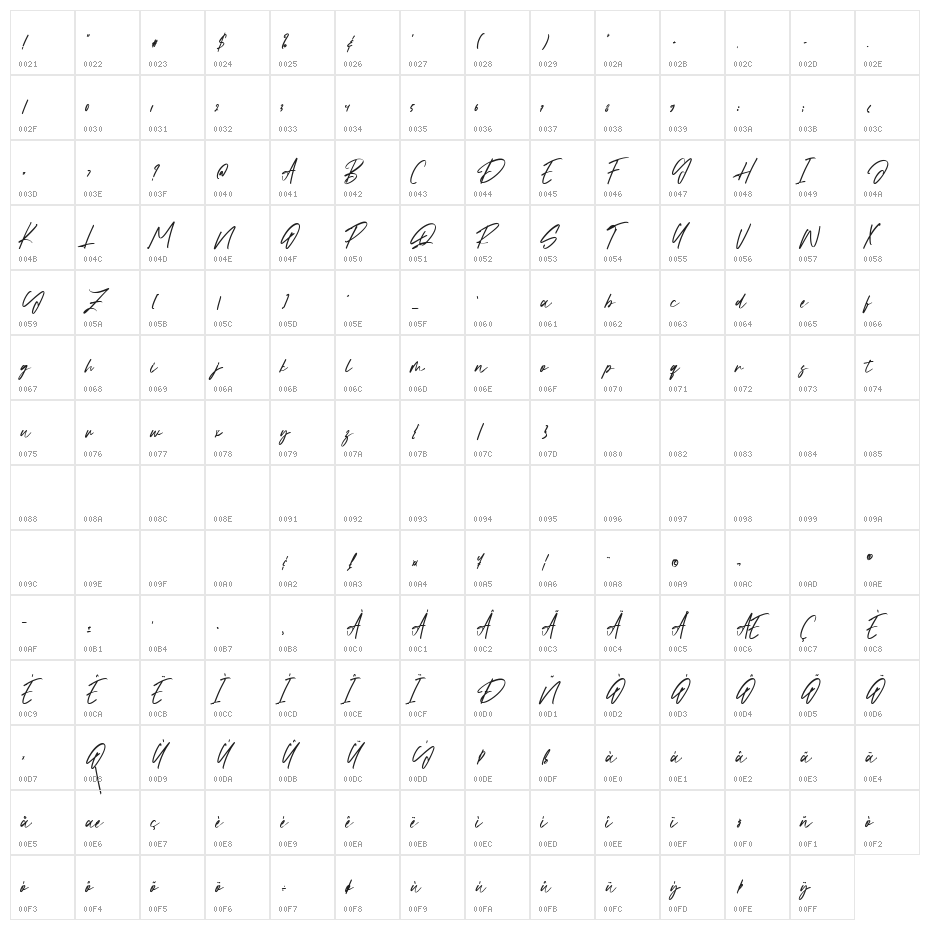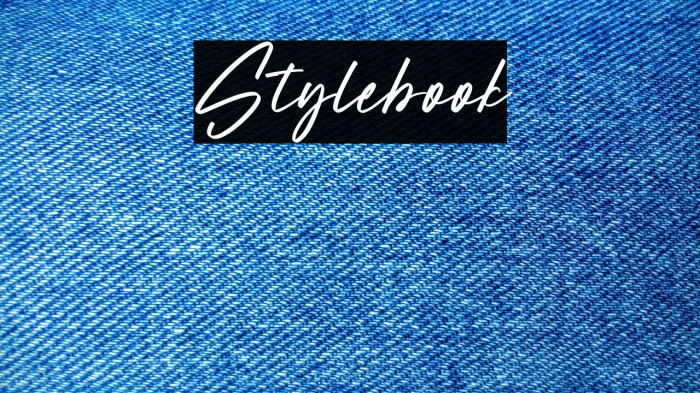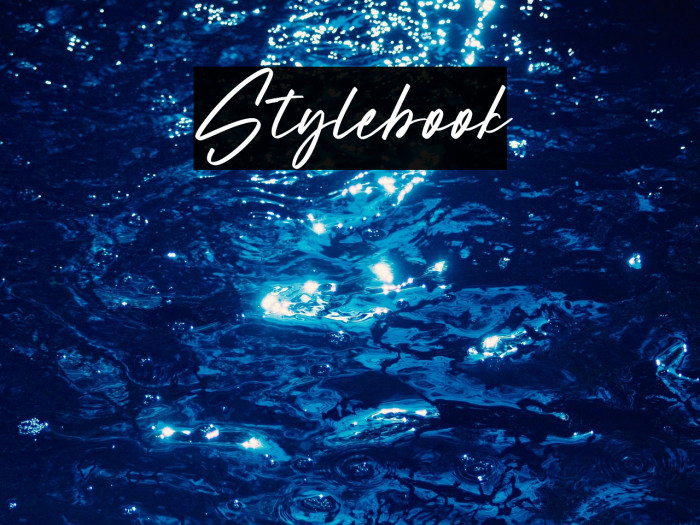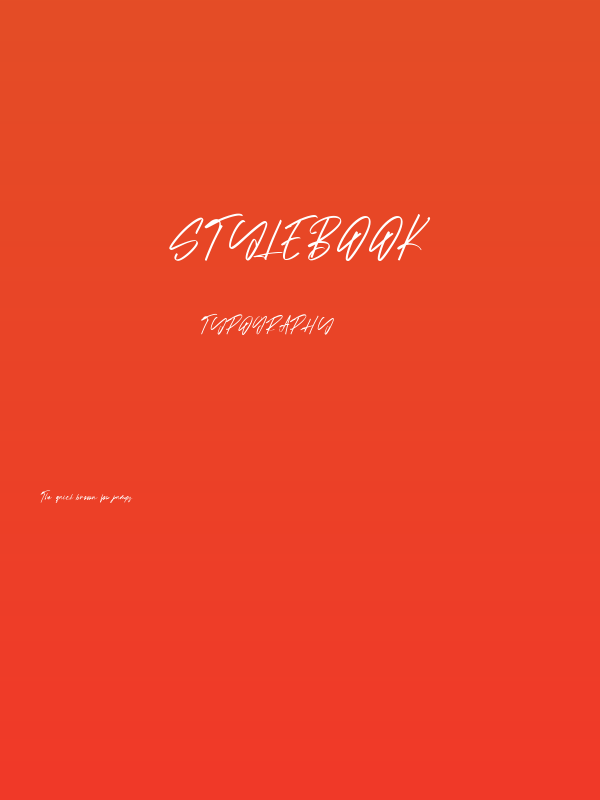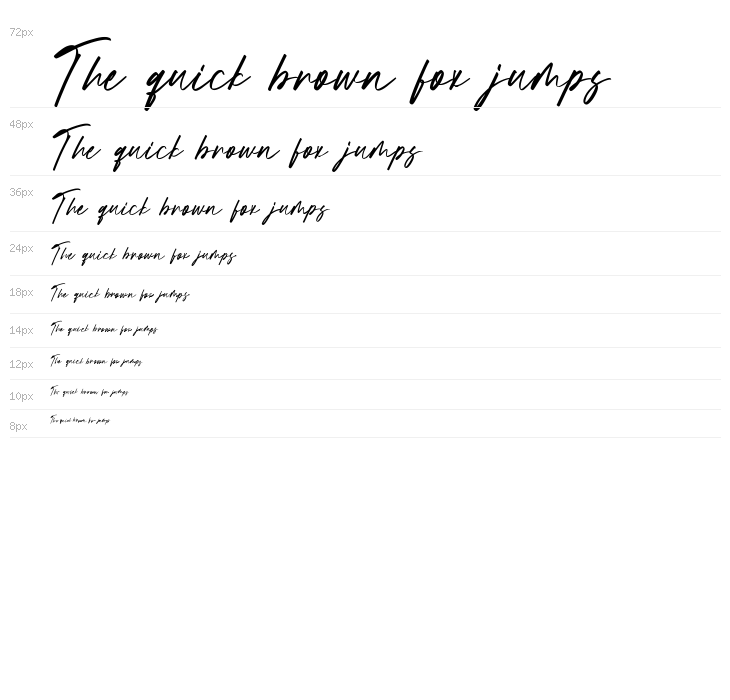
Stylebook Font
Stylebook Description
This font exudes a modern, handwritten style with a touch of elegance and fluidity. The letters are crafted with a natural flow, resembling cursive handwriting, which gives it a personal and intimate feel. The strokes vary in thickness, adding a dynamic and lively character to the text. The uppercase letters are slightly more elaborate, while the lowercase letters maintain a consistent and smooth appearance. The numbers and special characters are designed to complement the overall aesthetic, ensuring a cohesive look across all elements. This font is perfect for projects that require a personal touch, such as invitations, greeting cards, or branding materials.
| Overall Style | Modern, Decorative |
| Use Case | Logos, Headlines, Invitations |
| Proposed Projects | Ideal for wedding invitations, personal branding, greeting cards, and artistic projects. |